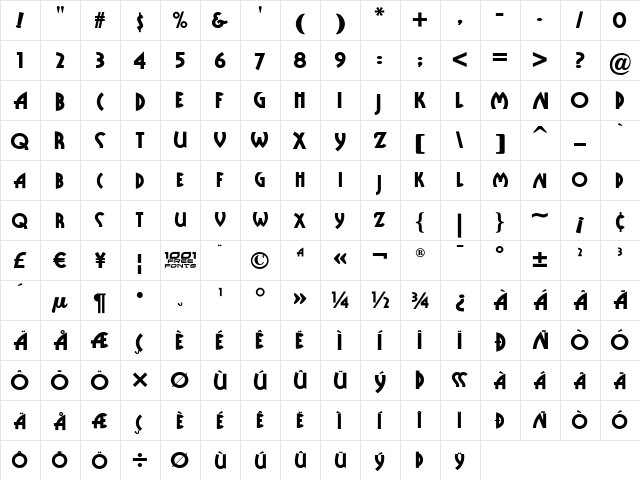
Public Enemy NF Regular
Design Context for Public Enemy NF Typeface
Public Enemy NF is a composed and adaptable typeface that performs quietly and consistently across a wide range of design contexts.